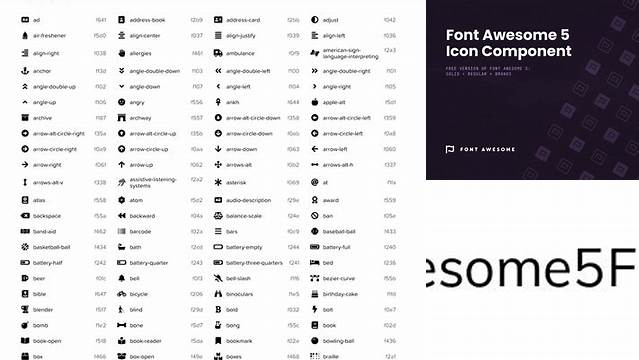
Font Awesome 5 Free Solid: Ultimate Guide & Usage
Hey guys! Ever wanted to spice up your website or project with some awesome icons? Well, look no further because we're diving headfirst into the world of Font Awesome 5 Free Solid! This is your go-to resource for understanding, implementing, and rocking those sleek, scalable vector icons. We'll cover everything from the basics to some pro tips, so buckle up!
H2: What is Font Awesome 5 Free Solid?
So, what exactly is Font Awesome 5 Free Solid? Think of it as a massive library of icons that you can use on your website or in your designs. It's all about making your content visually appealing and user-friendly. The "Solid" part refers to the style of the icons - they're filled in, unlike the "Regular" or "Light" styles. The "Free" part is the best part, it means you can get started without spending a dime! You get access to a huge collection of icons perfect for almost any need. Font Awesome itself is a font-based icon library, but it also supports SVG (Scalable Vector Graphics), giving you flexibility and awesome customization options. It's incredibly versatile, allowing you to easily incorporate icons that enhance navigation, highlight important information, or simply add a touch of visual flair. It's designed to be scalable, meaning the icons will look sharp no matter their size, and they are vector-based, so they won't get pixelated. Using Font Awesome 5 Free Solid is a super smart way to make your website or app more user-friendly and visually appealing. Consider it your secret weapon for making your digital spaces stand out from the crowd. This library is designed to be easily integrated into your projects, whether you're a seasoned web developer or just starting out. You’re able to customize the icons to match your branding, change their colors, size them up or down without losing quality, and rotate them. Plus, the solid style gives the icons a bold look, ensuring that they grab attention. The solid icons are perfect for buttons, headings, or any element where you need a clear, strong visual cue. With this, you can improve your user's experience with clear visual guidance. The best part? It's really easy to get started. We will cover how to use it. It is the perfect tool to easily add visual elements. Let's get started and make our sites shine!